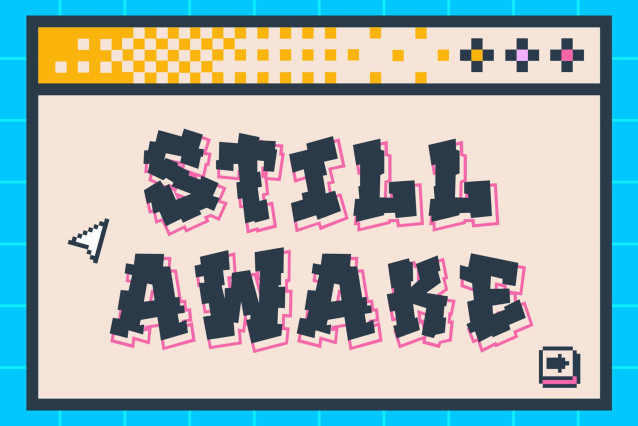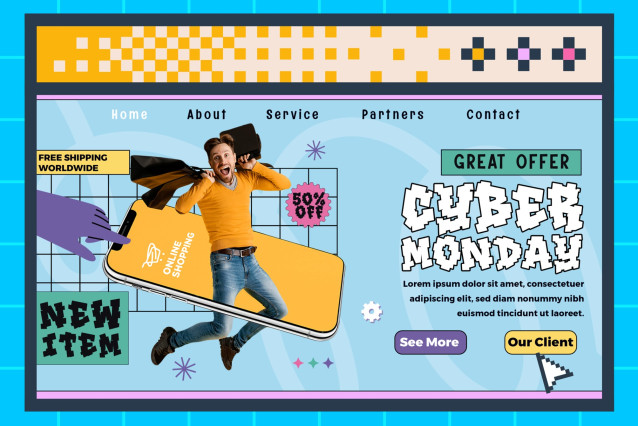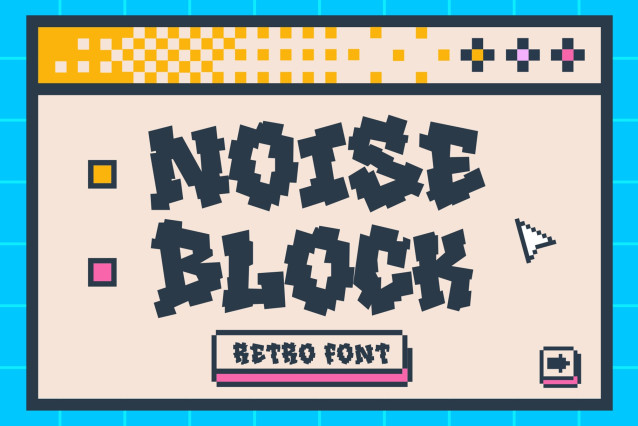
Noise Block Font
Noise Block Font is a simple and modern display font suitable for quotes, logos, headings, titles, and many more. Use it on any of your creative projects, and your designs will become outstanding!